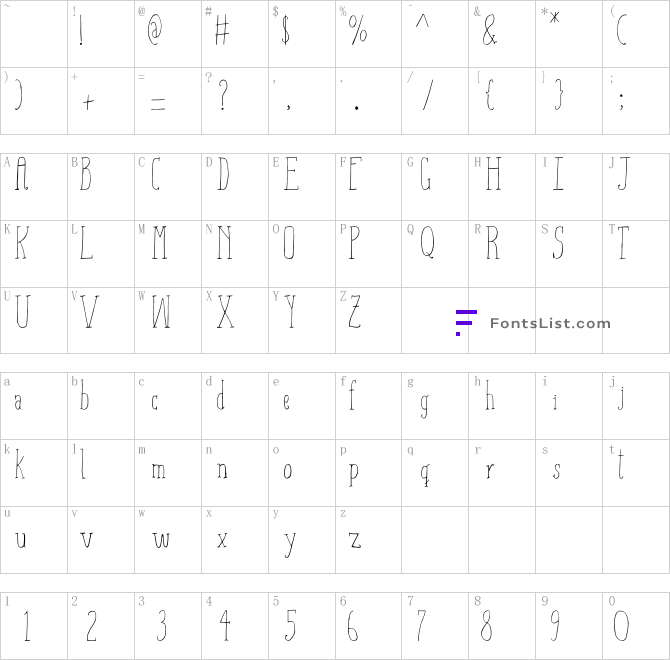
- Font Name:Aiza Shine Serif
Aiza-Shine-Serif.otf is a very beautiful artistic font, Aiza-Shine-Serif.otf is widely used in the design and printing of various books and pictures,Aiza-Shine-Serif.otf has a strong visual impact,Aiza-Shine-Serif.otf is a commonly used font in newspapers, magazines and books, and is used in posters, e-commerce Poster design, store design, logo design, font design and other fields.Aiza-Shine-Serif.